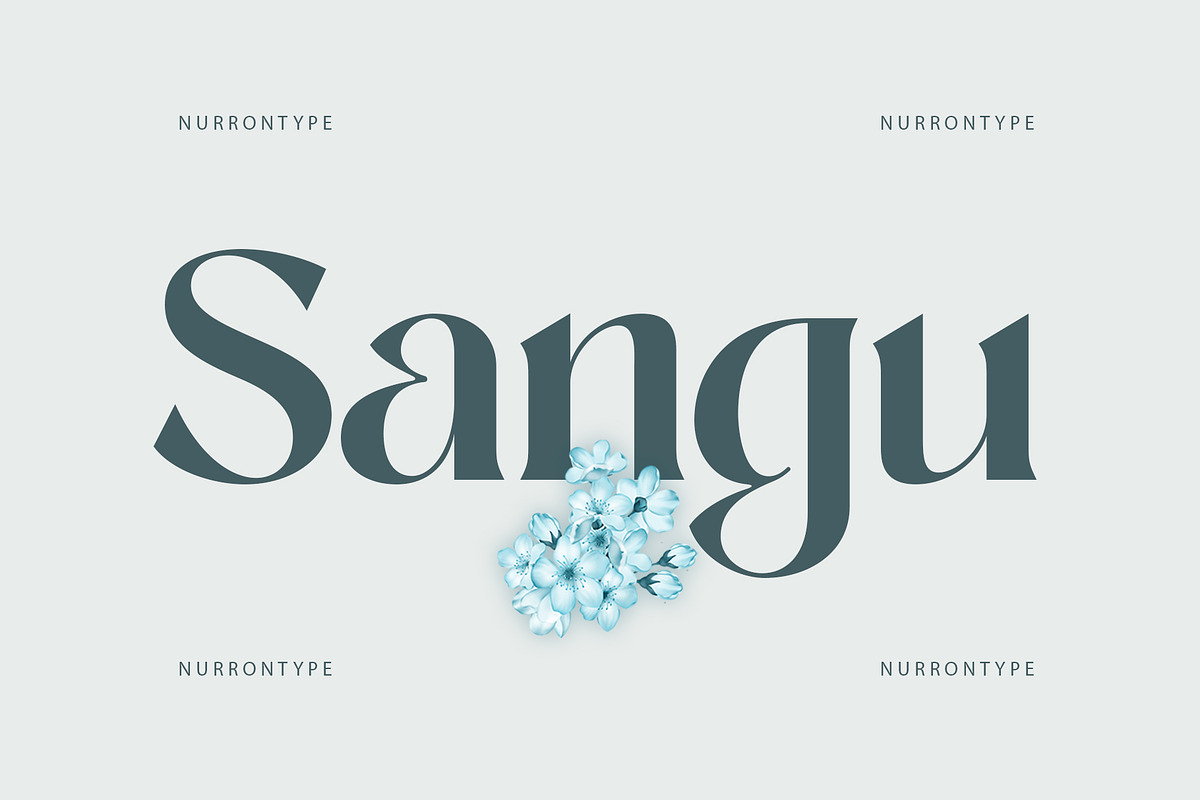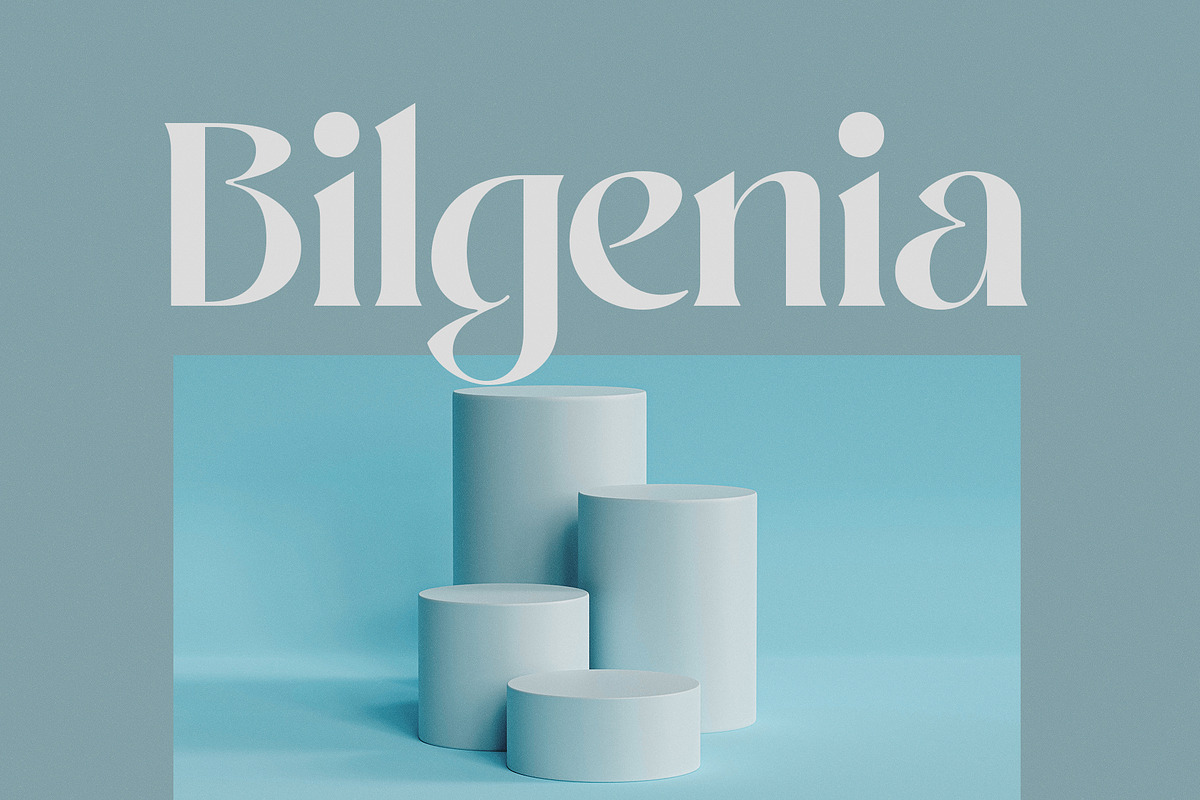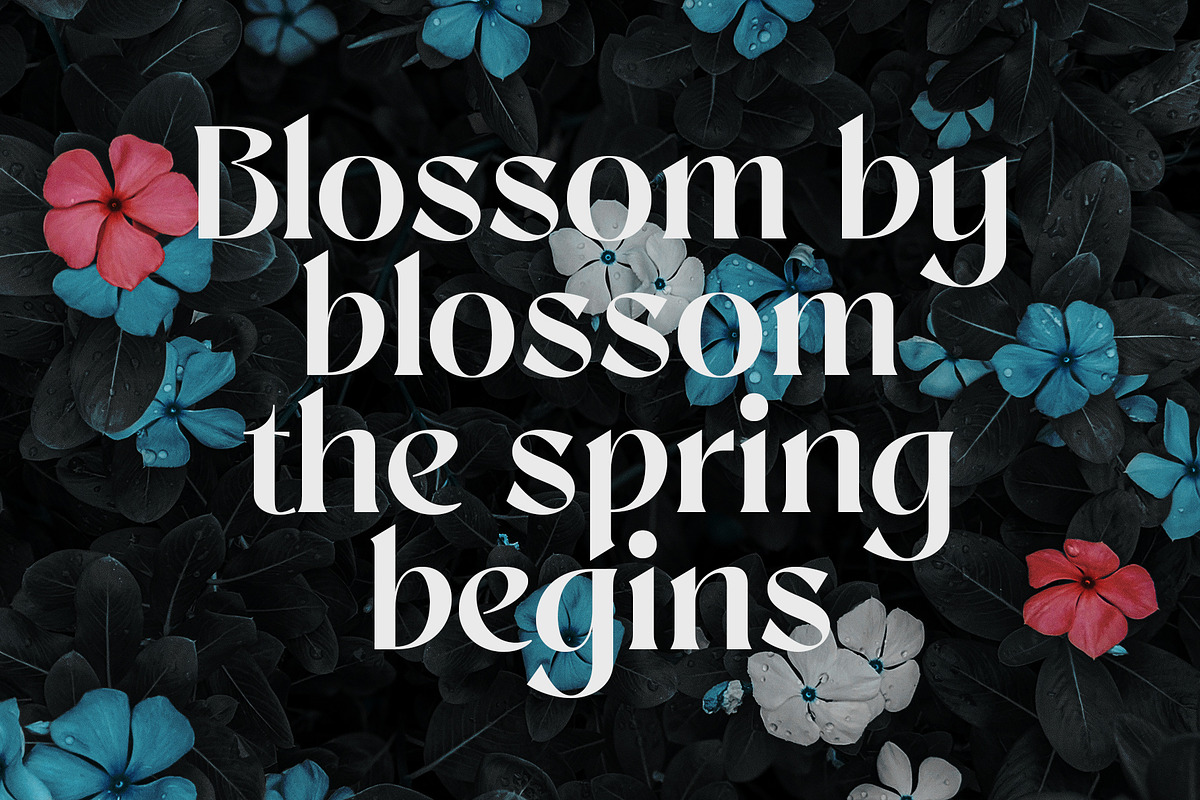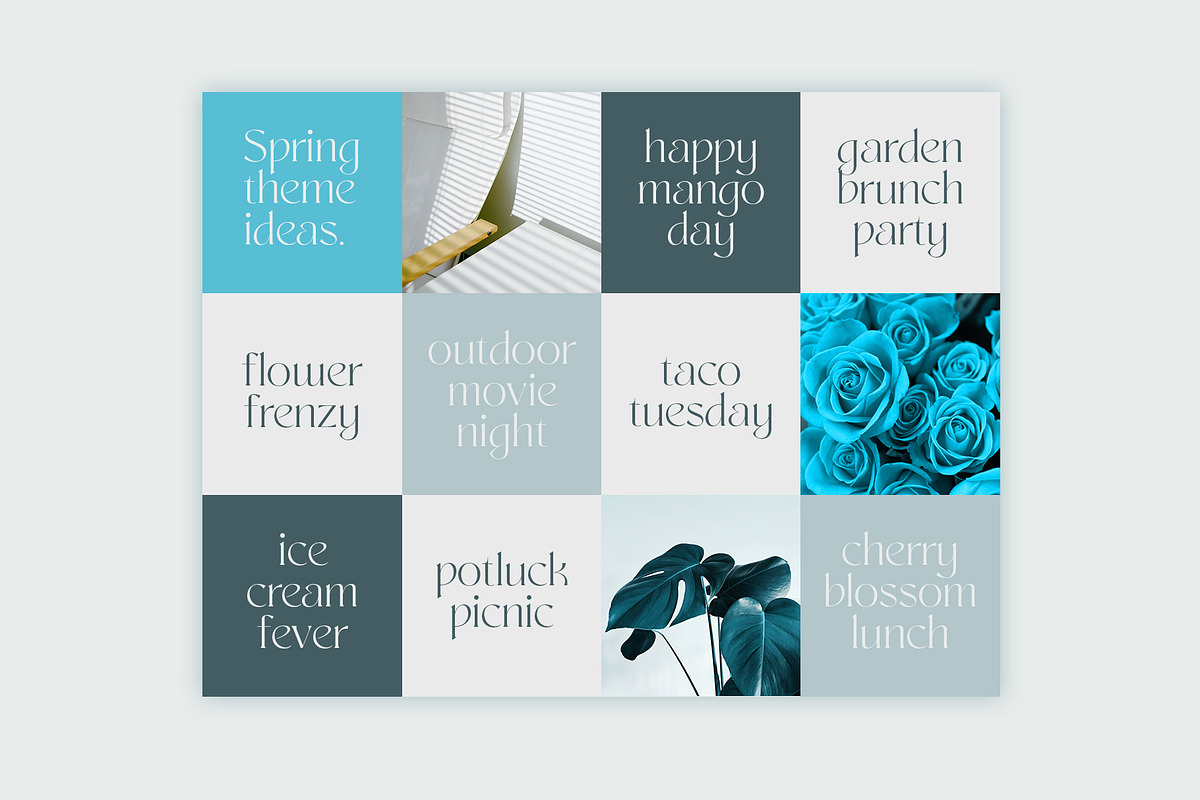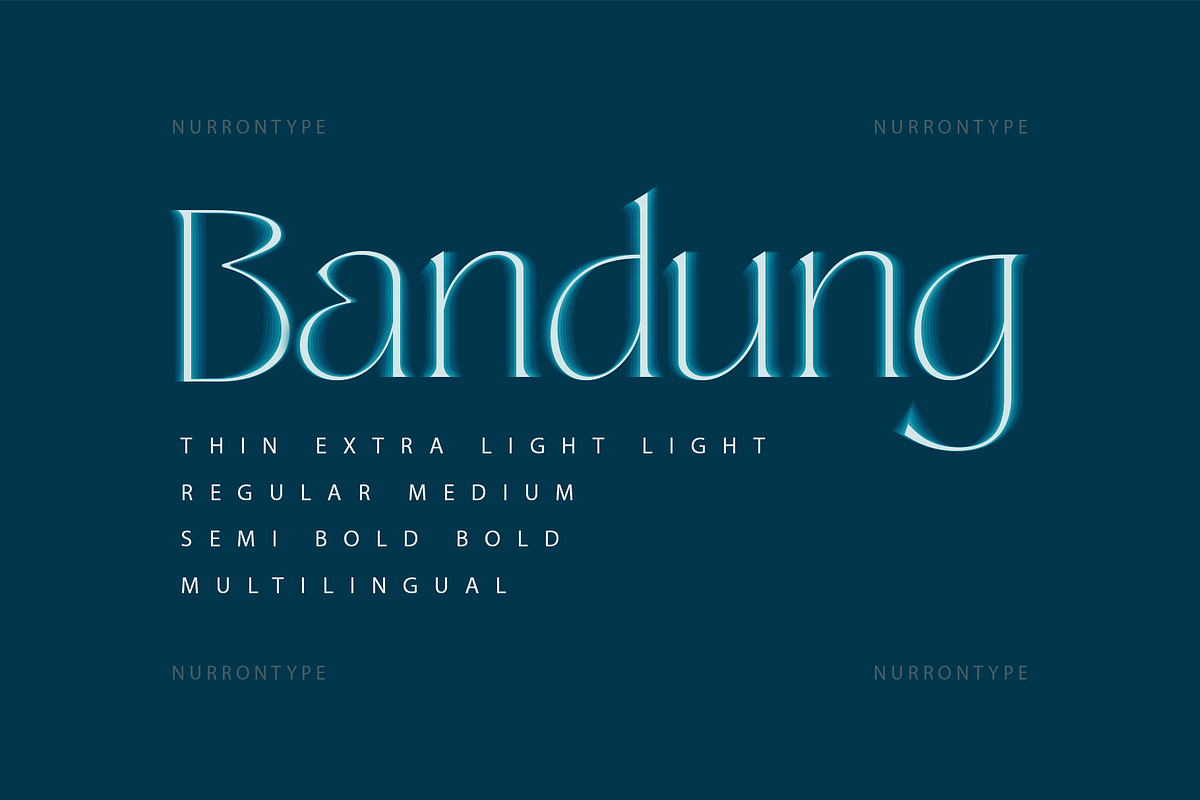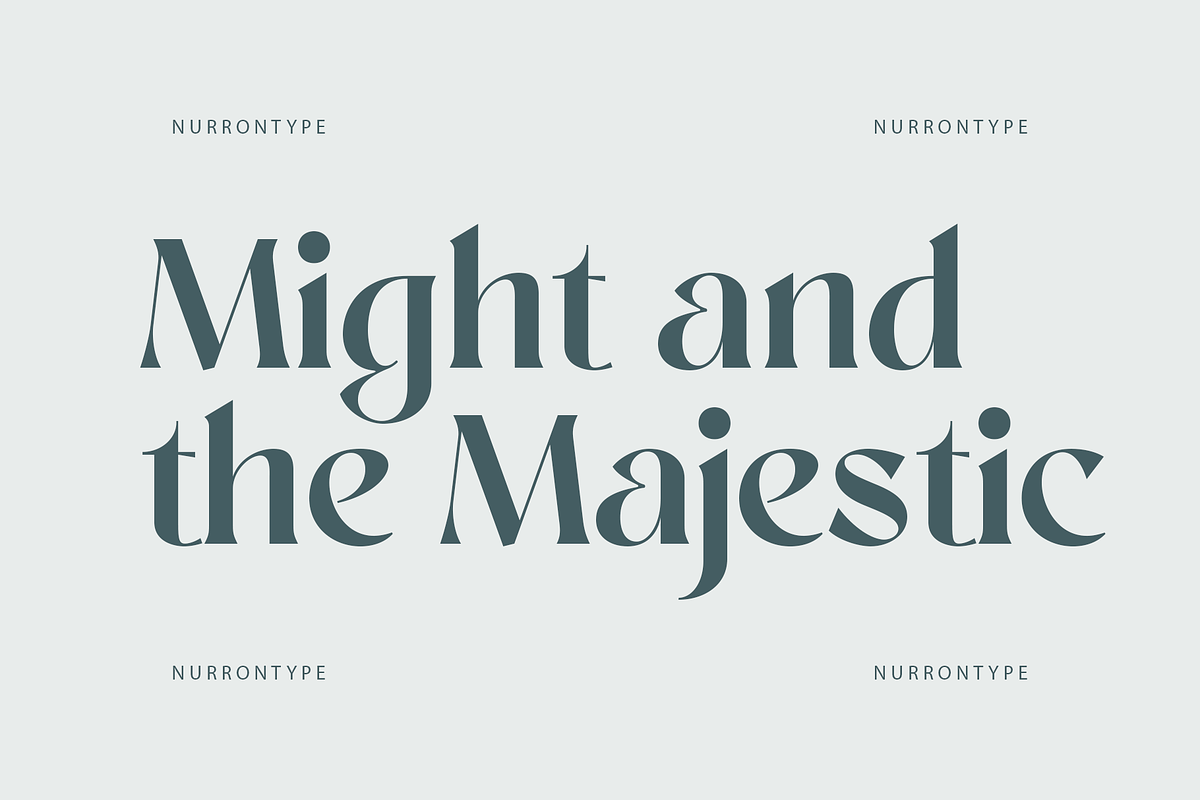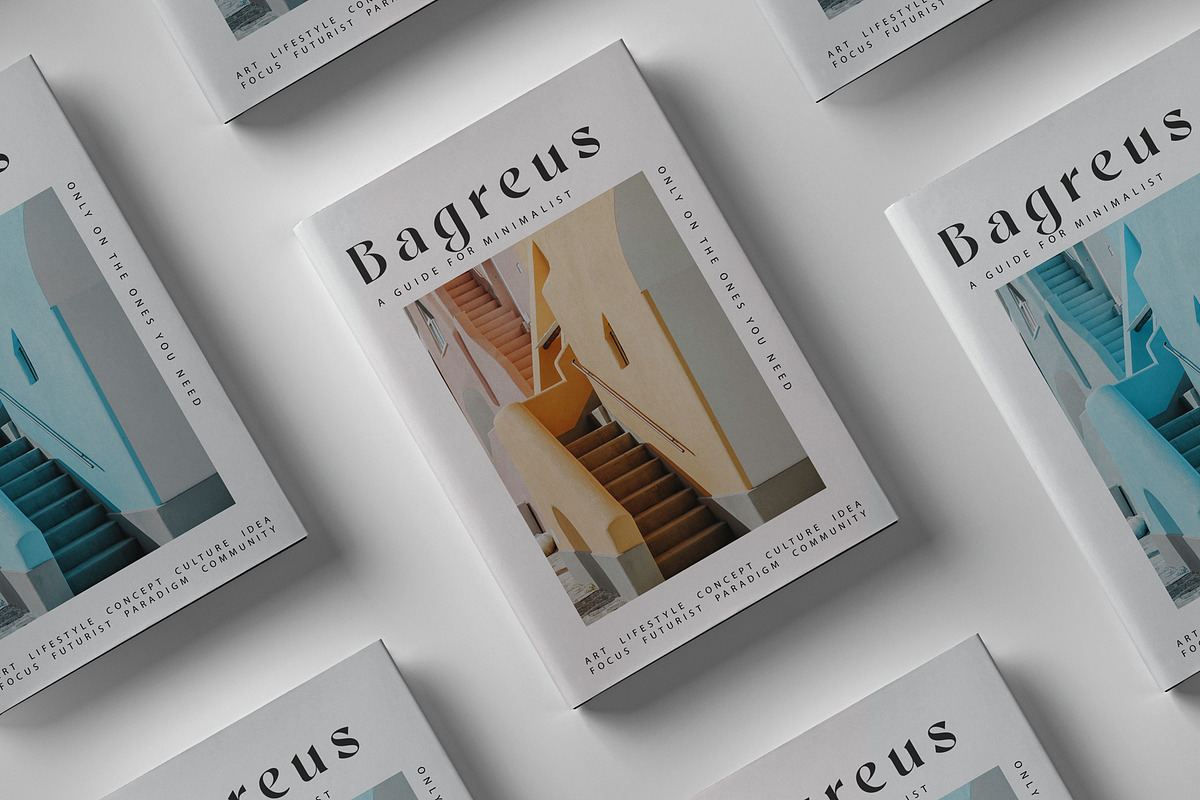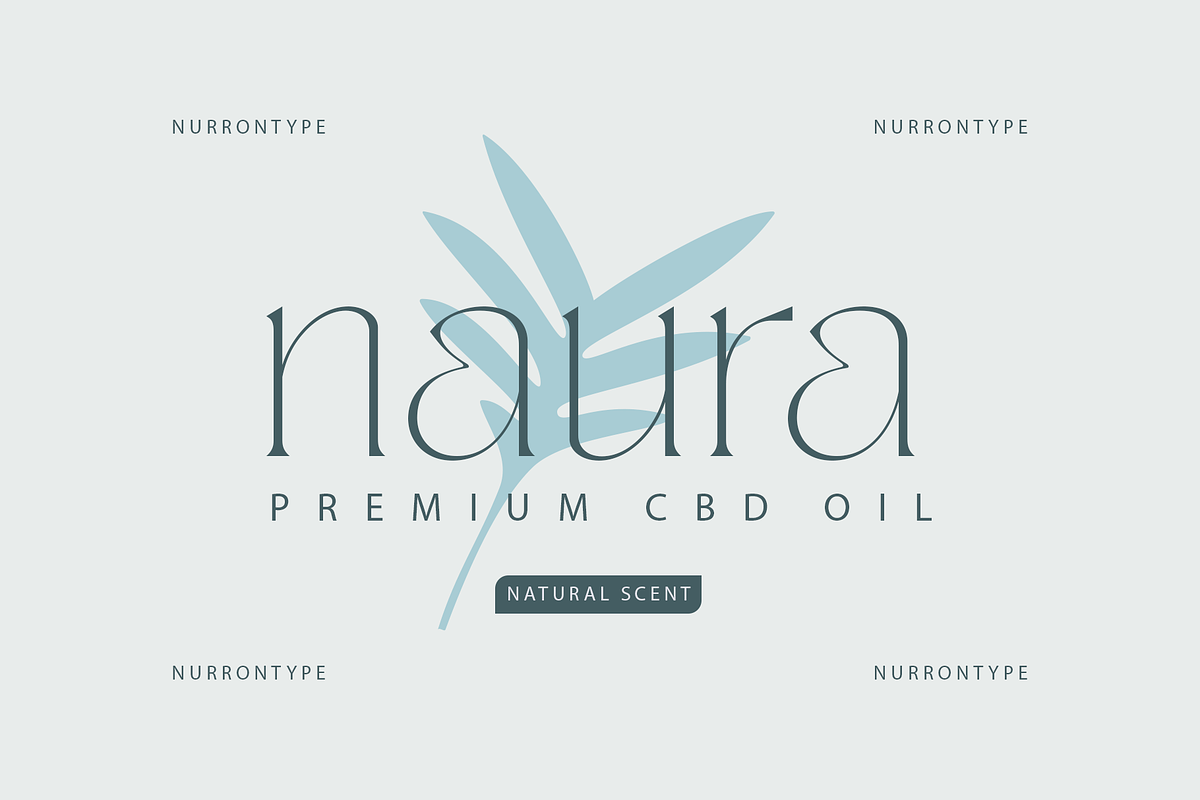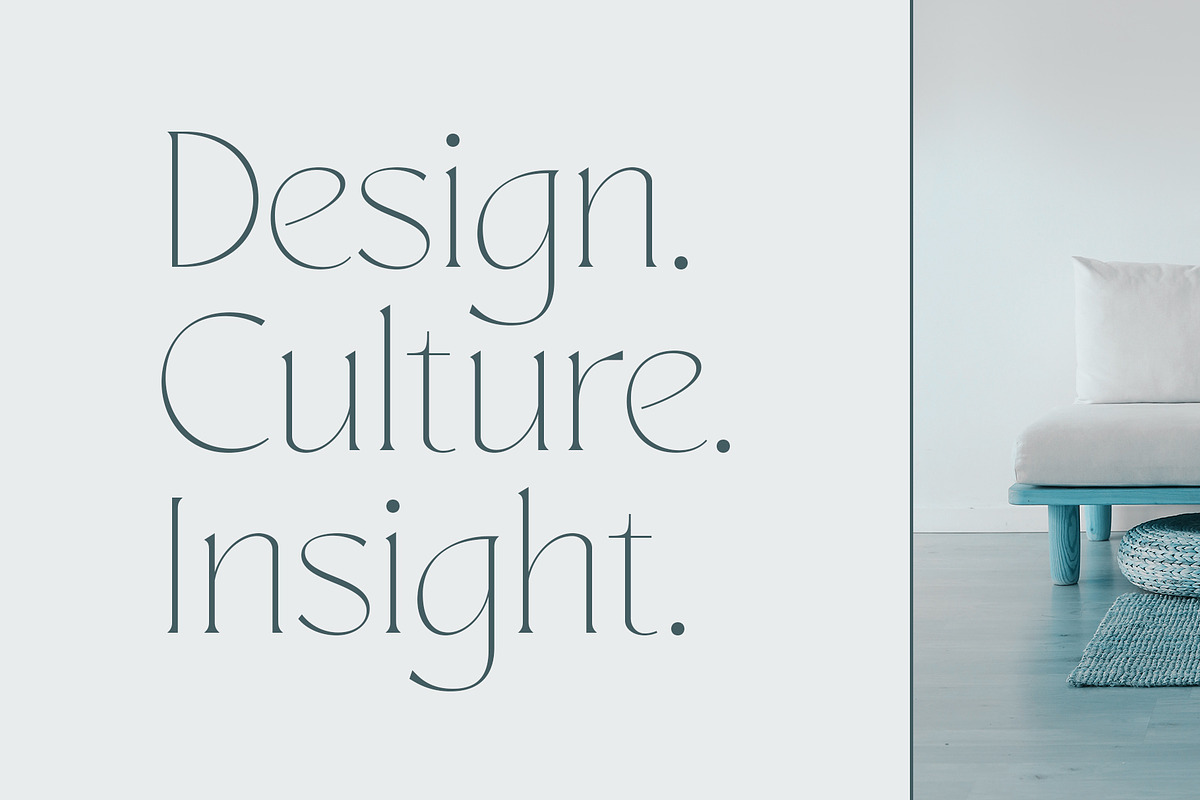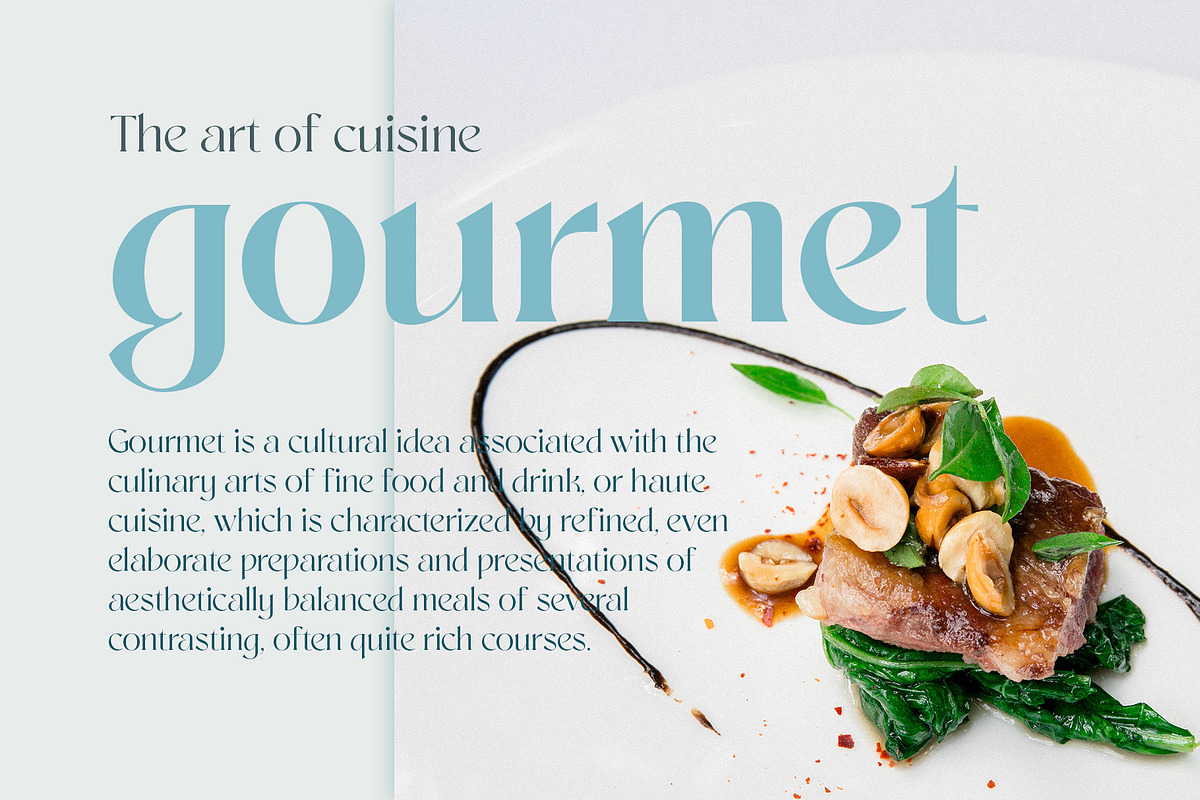
Sangu
Sangu is a high-contrast serif font that is perfect for adding an elegant and sophisticated touch to any project. With its unique glyphs and range of weights from thin to bold, Sangu is a versatile font that can be used for everything from headlines to body text. Whether you're designing a brand or a logo, Sangu's elegant and bold style will help your message stand out. What sets Sangu apart from other serif fonts is its unique glyphs that add a touch of personality to your text. If you're looking for a font that will elevate your design, Sangu is an excellent choice.